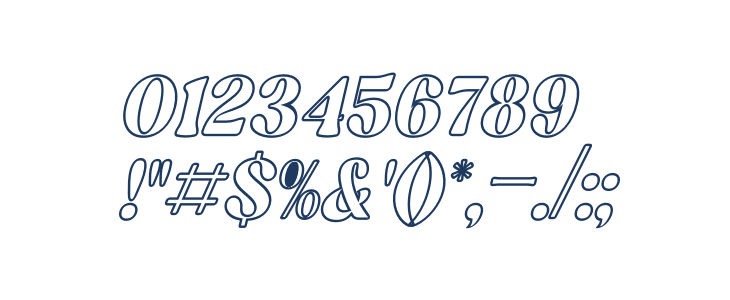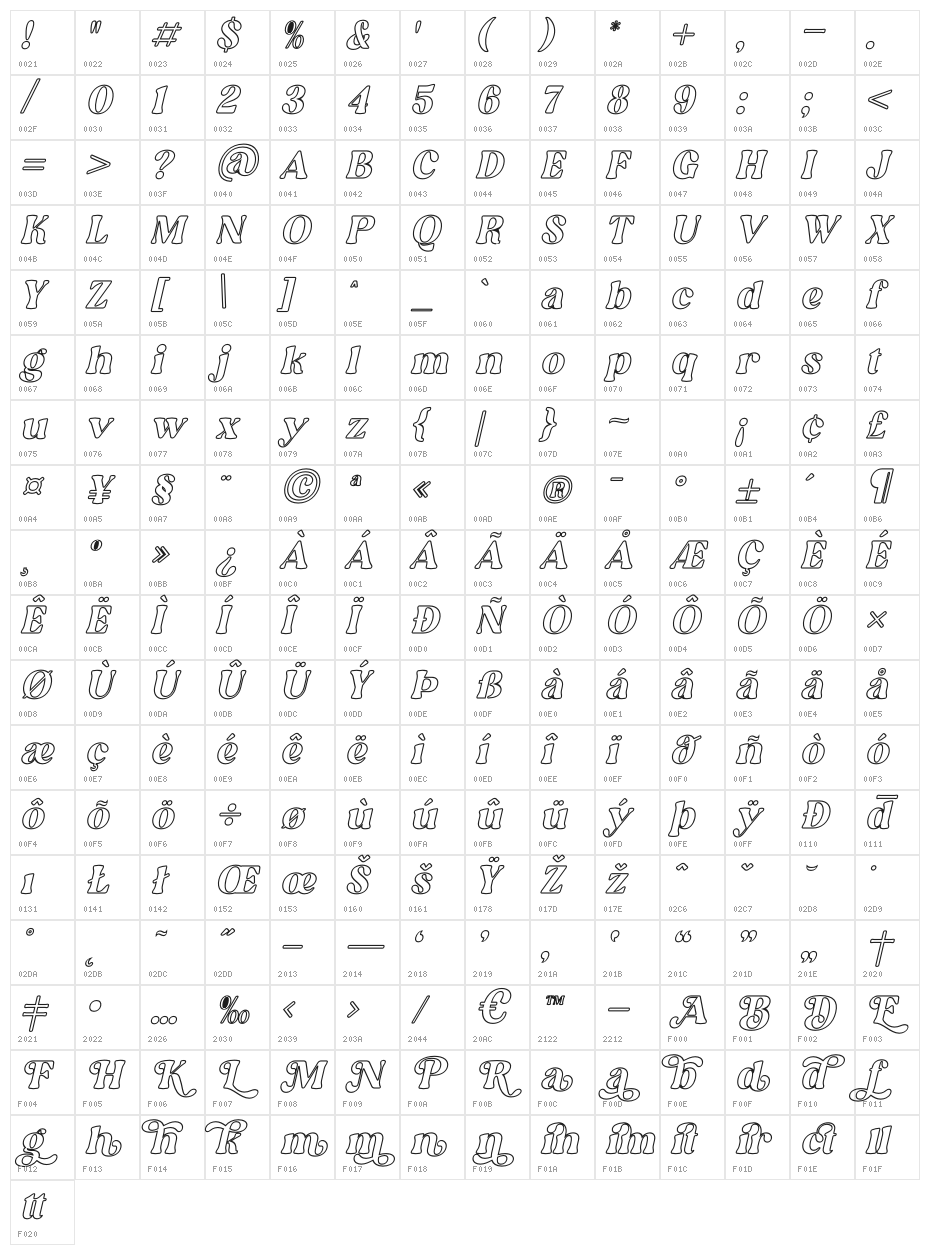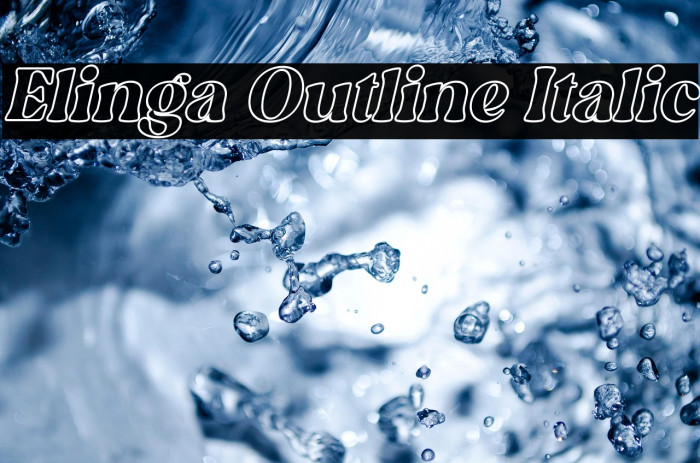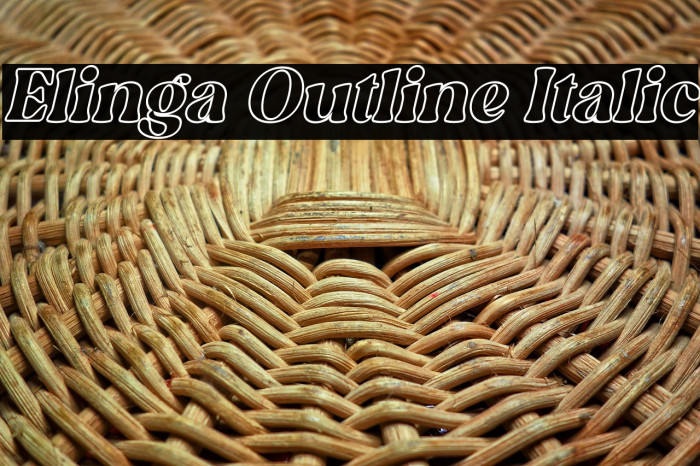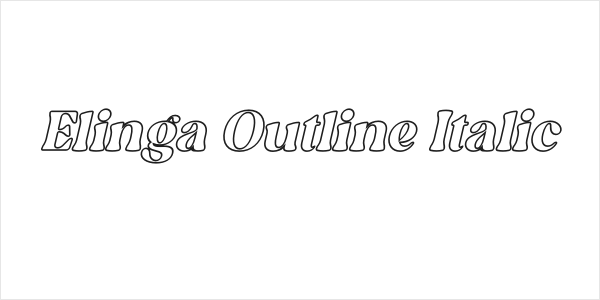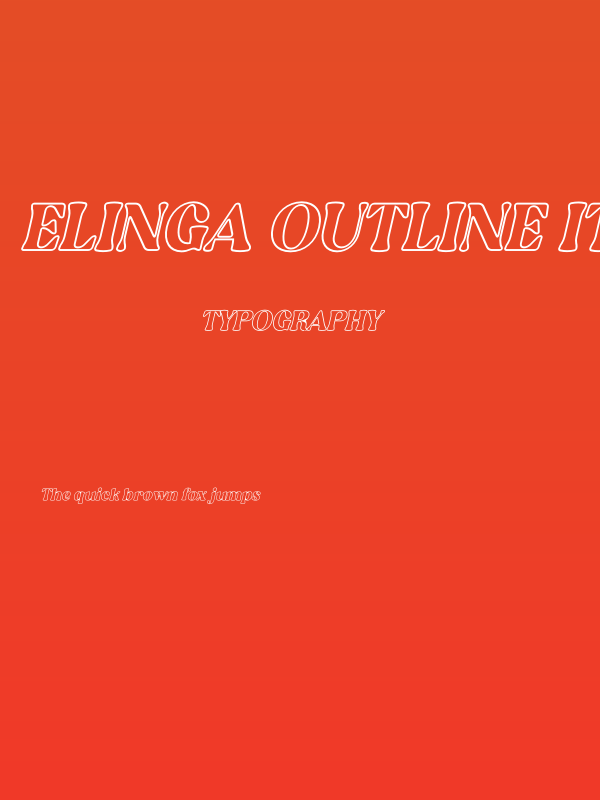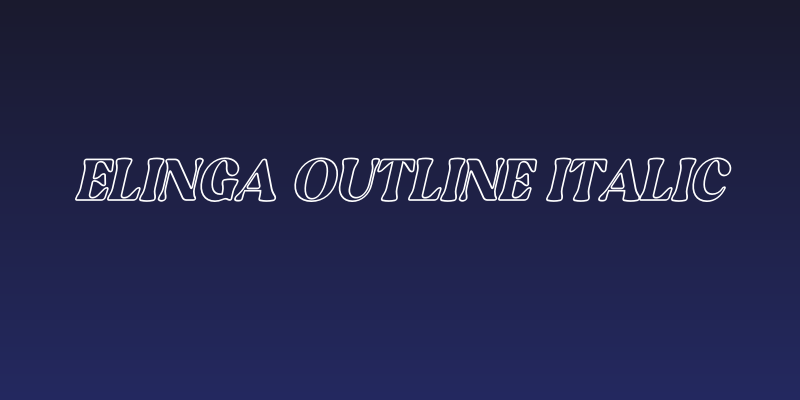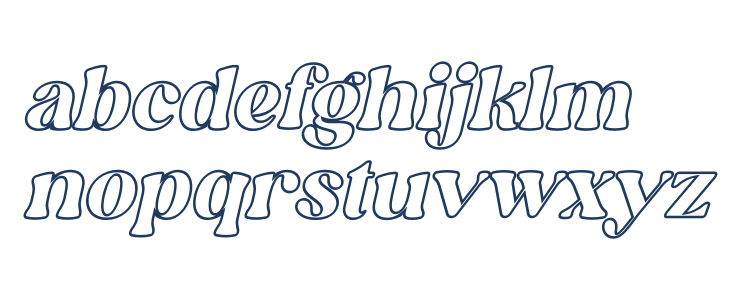
Elinga Outline Italic Font
Elinga Outline Italic Description
This font features a distinctive outline style with an italic slant, giving it a dynamic and modern appearance. The uppercase and lowercase letters are designed with a consistent stroke width, creating a harmonious look across the alphabet. The numerals and special characters maintain the same outline effect, ensuring uniformity throughout. The font's italic nature adds a sense of movement and elegance, making it suitable for creative and eye-catching designs. Its outline style allows for versatility in layering and color use, making it ideal for projects that require a bold yet sophisticated touch.
| Proposed Projects | Ideal for branding, headlines, posters, and creative design projects that require a bold and modern touch. |